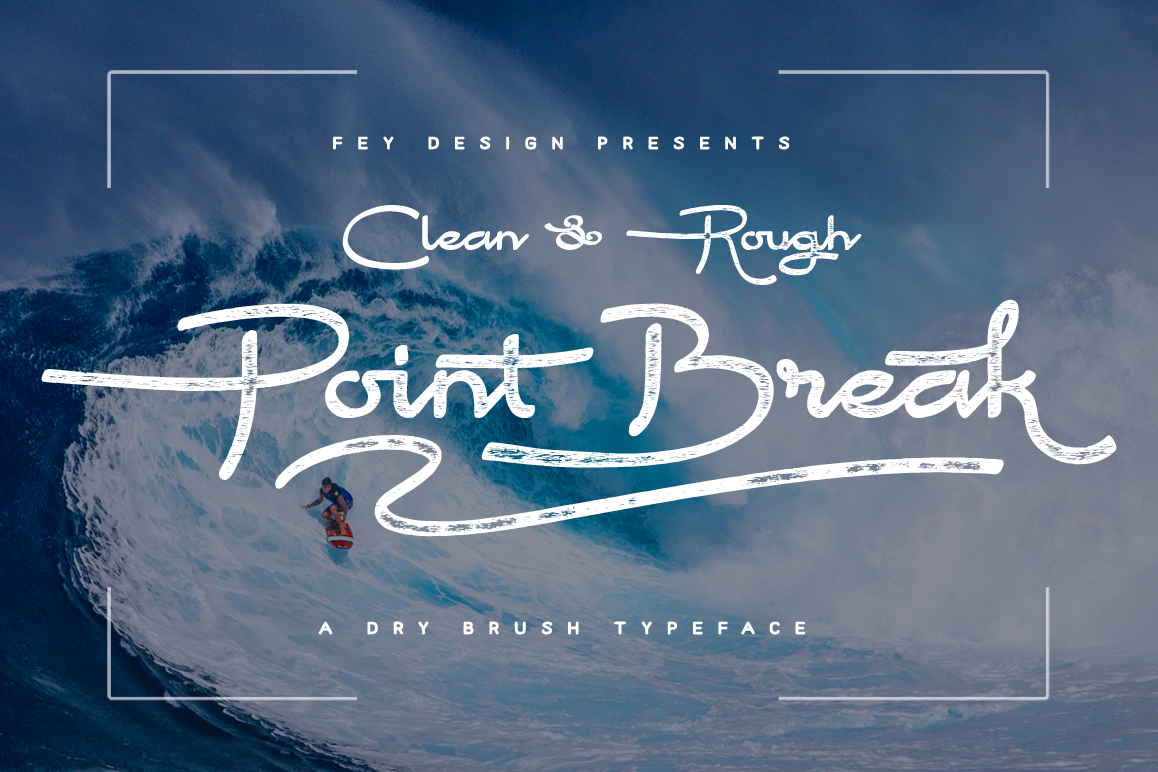
Point Break
Point Break Clean
Point Break Rough
Point Break Swashes
PointBreakRoughSwashes
Point Break
Point Break Brush Font is Authentic calligraphy style with clean and rough, Suitable for design, element design, wedding, event, t-shirt, logo, badges, sticker, and awesome work, etc...
- Combination alternative ligature fonts
- Standard Ligatures, Stylistic Set, Multilanguage Characters
- Authentic Calligraphy Typeface
- Multilanguage Support
- Unique style fonts